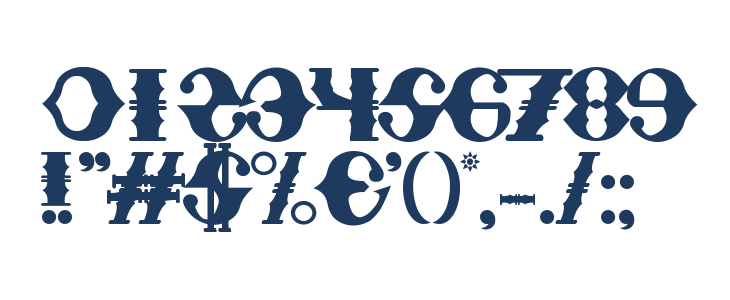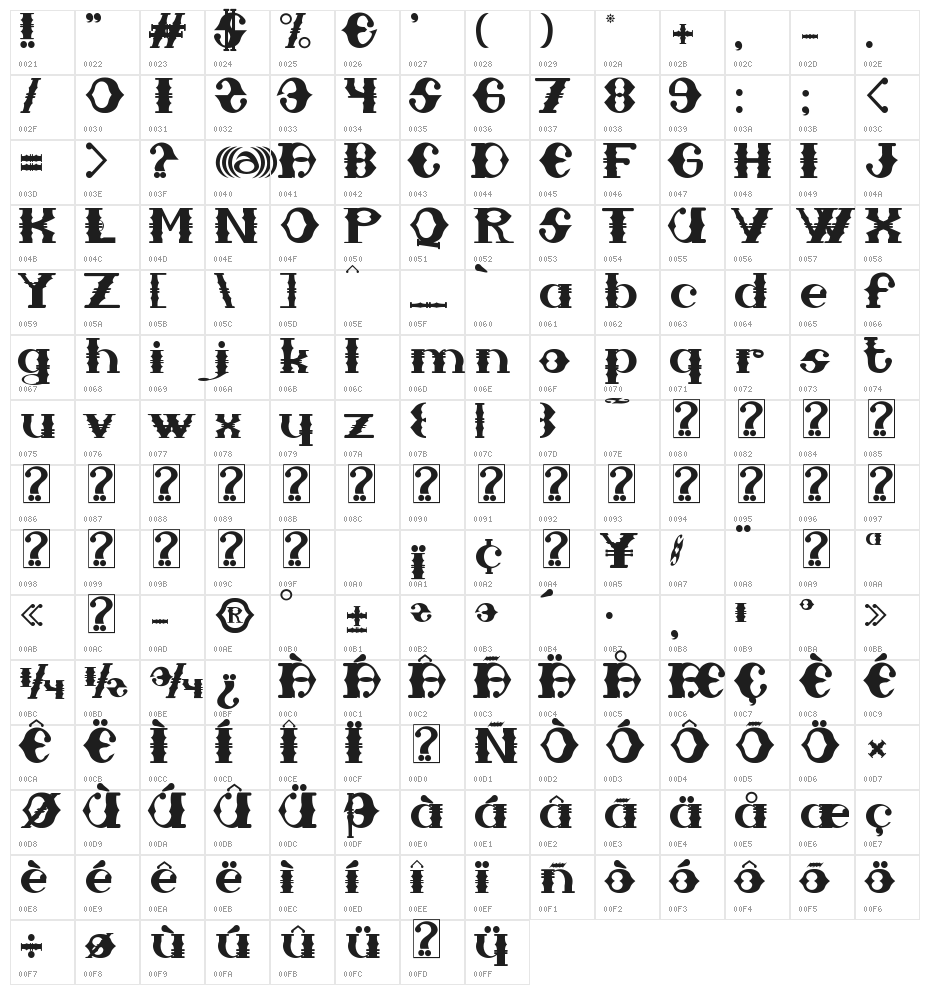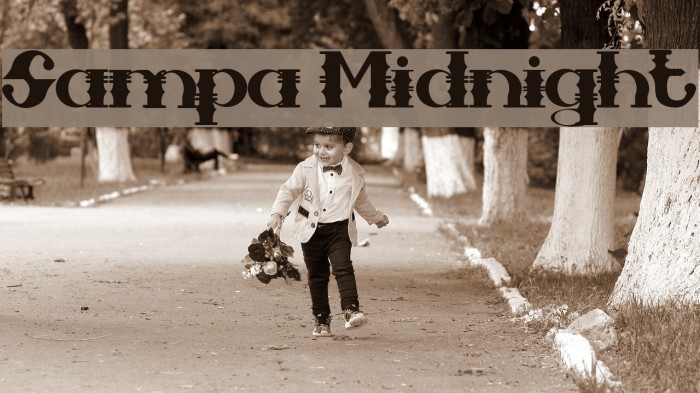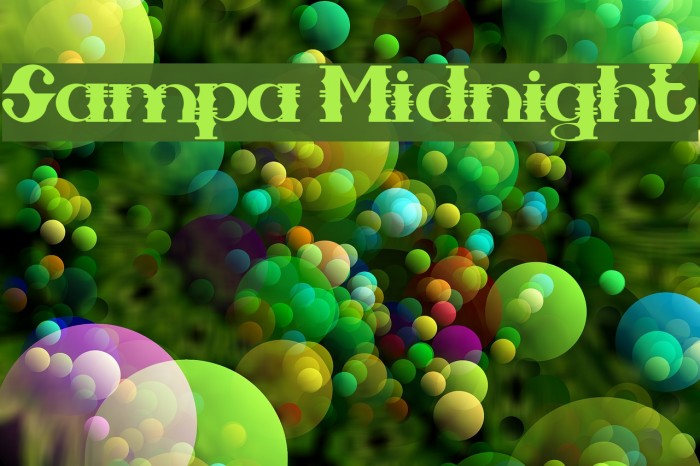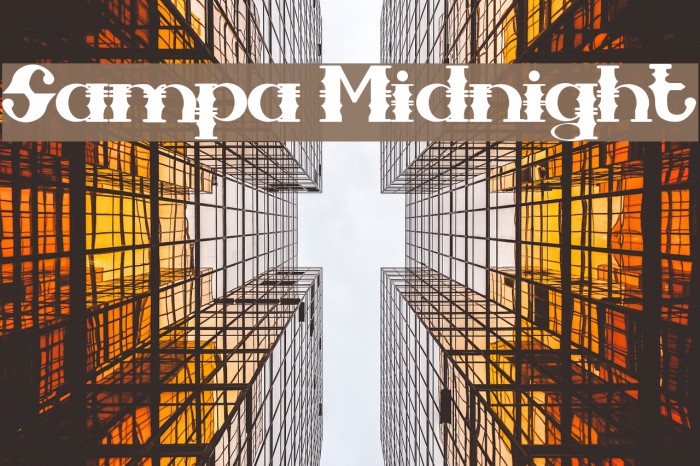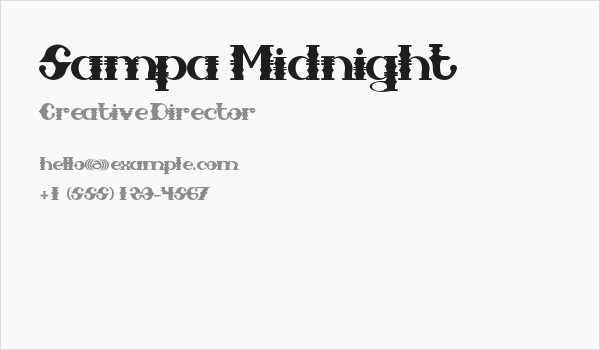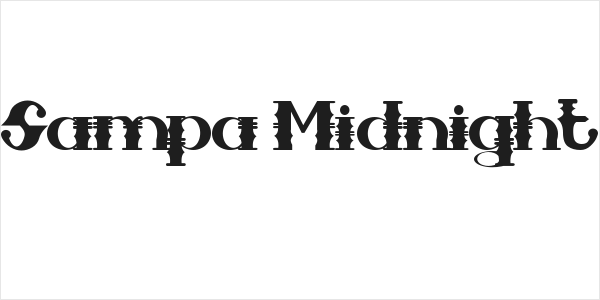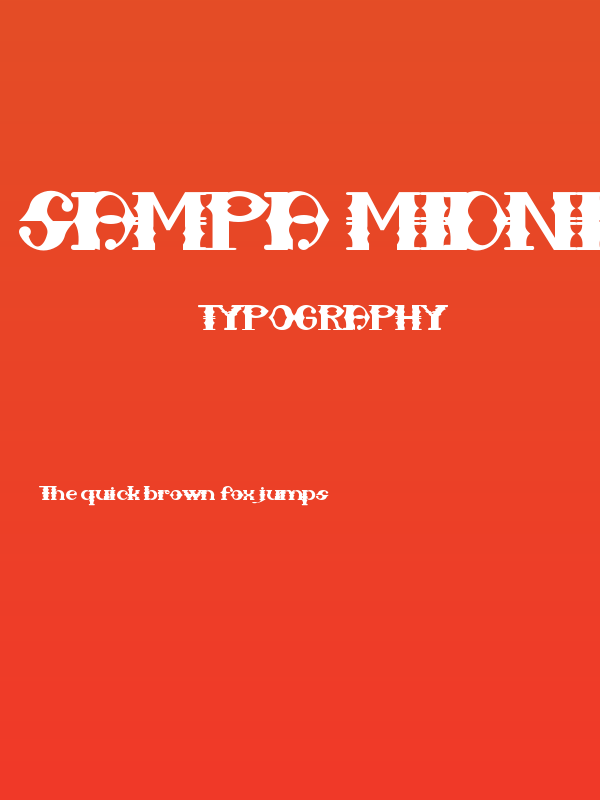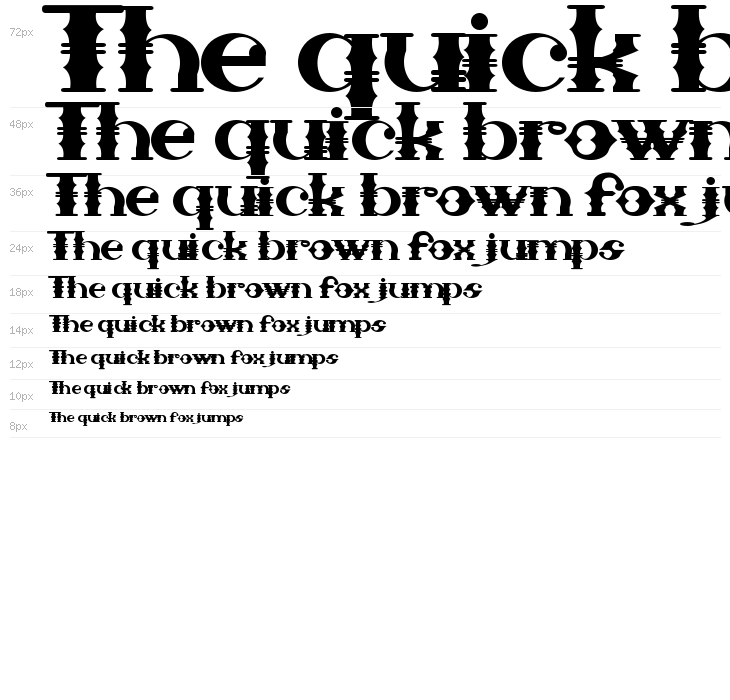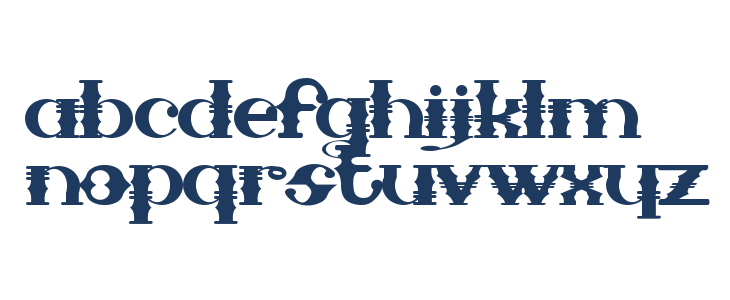
Sampa Midnight Font
Sampa Midnight Description
This font features a bold and dramatic style with intricate details and high contrast between thick and thin strokes. The characters are adorned with unique decorative elements that give them a distinct, almost gothic appearance. The uppercase letters are particularly striking, with sharp edges and elaborate serifs that create a sense of grandeur. The lowercase letters maintain the decorative theme, with flowing curves and ornate details. Numbers and special characters are equally stylized, ensuring a cohesive look across all glyphs. This font is designed to capture attention and make a bold statement.
| Proposed Projects | Ideal for projects that require a dramatic and eye-catching typeface, such as posters, album covers, or branding for luxury products. |